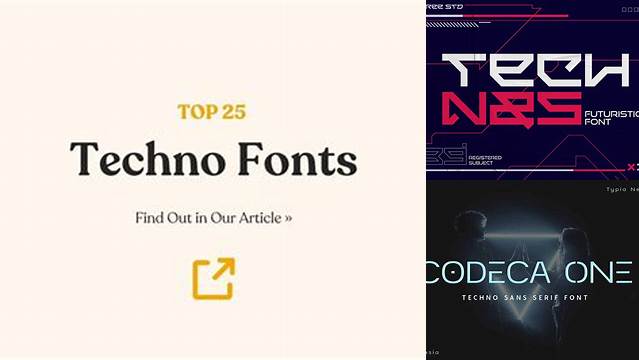
Techno Fonts Generator: Your Guide To Futuristic Design
Hey guys! Ever wanted to give your designs that futuristic, edgy vibe? Well, you're in the right place! We're diving deep into the world of techno fonts, and guess what? We'll explore how a techno fonts generator can be your secret weapon. These fonts aren't just letters; they're statements. They scream innovation, technology, and a touch of rebellion. Whether you're a graphic designer, a web developer, or just someone who loves cool fonts, this is for you. Let's get into it!
What are Techno Fonts and Why Use Them?
Alright, so what exactly are techno fonts? Think of them as the visual embodiment of the digital age. They’re characterized by clean lines, geometric shapes, and a sense of forward-thinking design. They often feature bold weights and a modern aesthetic, making them perfect for grabbing attention. You'll typically spot them in tech websites, electronic music flyers, and anything that wants to give off a futuristic vibe. Why use them, though? Because they instantly communicate a message of innovation and sophistication. They can add a layer of authority to your brand. They make your designs pop. Think about it: if you're creating a website for a cutting-edge tech company, would you use a traditional serif font? Probably not! A techno font conveys that you're modern, relevant, and on the pulse.
Consider the power of a well-chosen font. It can set the tone of your entire project. Imagine a flyer for a music festival. A classic serif font might feel a bit… well, stuffy. But a bold, angular techno font? That screams energy, excitement, and a promise of an unforgettable night. The same applies to websites, logos, and even presentations. The right techno font can make the difference between a design that’s ignored and one that captures attention. It’s all about the message you want to send. Do you want to appear sleek and sophisticated? Choose a clean, minimalist techno font. Want to convey a sense of raw energy and chaos? Opt for a font with more jagged edges and aggressive angles. The possibilities are endless, and the techno fonts generator is your key to unlocking them. Plus, using a techno font can make you appear more cutting-edge than competitors. It can make you stand out in a crowd.
Techno fonts are more than just a visual style. They're a form of digital expression that lets you tap into an aesthetic that resonates with the tech world. It's a way to speak to a particular audience, to signal that you understand their tastes. They are excellent for creating a sense of branding or identity in a project. It can be used for many projects, ranging from posters and logos to website designs and music album covers. It is important to choose the font correctly to capture the essence and tone of your specific project.
Exploring Different Styles of Techno Fonts
Alright, let’s get into some specific styles, shall we? The world of techno fonts is far from one-size-fits-all. From sleek and minimalist to bold and aggressive, there’s a techno font out there for every project. You gotta understand this is important. There's a whole universe to explore! We'll look at some popular categories and what makes them unique. Understanding these styles will help you choose the right font for your specific needs, so buckle up!
First up, we have the minimalist techno fonts. These guys are all about clean lines, simple shapes, and a sense of understated elegance. Think of fonts like 'Digital-7' or 'Orbitron'. They're perfect for websites, logos, and designs that need to convey a sense of sophistication without being overwhelming. They're all about precision and clarity. Then, we've got the geometric techno fonts. These are fonts that embrace geometric shapes like circles, squares, and triangles. They create a sense of structure and order, but also a touch of the futuristic. 'Bebas Neue' and 'Montserrat' (while not strictly techno, they have a similar vibe) are examples of geometric fonts you can use. They work well for titles and headlines, making a bold statement.
Next, we have the pixelated techno fonts. These fonts pay homage to the early days of digital graphics. Pixelated fonts like 'Press Start 2P' or fonts that mimic the look of old arcade games, create a retro-tech feel. They're a great choice if you're going for a nostalgic vibe or a design that's a bit playful. Then, there are the bold and angular techno fonts. These are the fonts that really scream energy and innovation. They're often used for music flyers, event posters, and anything that needs to grab attention immediately. You can see similar ideas in the design of many movie posters, video games or any design that needs to attract attention. These fonts make a strong visual impact. And don’t forget the stencil techno fonts. These fonts feature cut-out designs, which can add a touch of industrial or urban grit to your designs. Think of them as the edgy cousins of the techno font family. Each style brings something unique to the table, making it easy to find the right font for your project!
How to Generate Techno Fonts: Tools and Techniques
Okay, now the fun part: generating your own techno fonts. How do you do it, and what tools can you use? Luckily, there are several options available, ranging from online generators to more advanced design software. Here’s a breakdown of the best methods.
Techno Fonts Generators: These are online tools that let you input text and then see it transformed into various techno font styles. Some popular online generators include websites like Font Meme and Cool Fonts. These are easy to use and perfect for quick mockups or finding inspiration. You just type in your text, choose a font style, and voila! You've got your techno text. The main benefit is speed and simplicity, but you're limited to the options provided by the generator. They are generally free to use, and can be great if you don't have a lot of time, or are new to creating fonts.
Font Design Software: For more control and customization, consider font design software like Glyphs, FontLab, or Adobe Font. These are professional tools that allow you to create your own fonts from scratch. This takes more time and effort, but the results are worth it if you have a specific vision in mind. With these programs, you can adjust every detail of your techno font, from the thickness of the lines to the shape of each character. If you want to have a unique font, this is how you do it. This is for the more advanced users who want complete control over their designs. The drawback is that they usually require a bit of a learning curve. But the rewards are huge.
Using Existing Fonts and Modifying Them: Another great option is to start with an existing font and modify it to your liking. You can do this in design software like Adobe Illustrator or Inkscape. You can import a font, then tweak the shapes, add effects, and change the weight to create a custom techno font. It’s a good middle ground between using a generator and creating a font from scratch. This allows you to create unique fonts that are specific to your needs without the immense labor of creating one from scratch.
Techno Fonts Generator: Conclusion
Alright, guys! We've covered a lot of ground. From the basic idea of techno fonts generator, we know what they are, why they're awesome, and how to use them effectively. We've explored the different styles, the tools you can use to create them, and best practices for incorporating them into your designs. Remember, the right font can transform any design, and techno fonts are a powerful tool in your arsenal. Go out there, experiment, and have fun. Let your designs speak the language of technology and innovation! Happy designing!